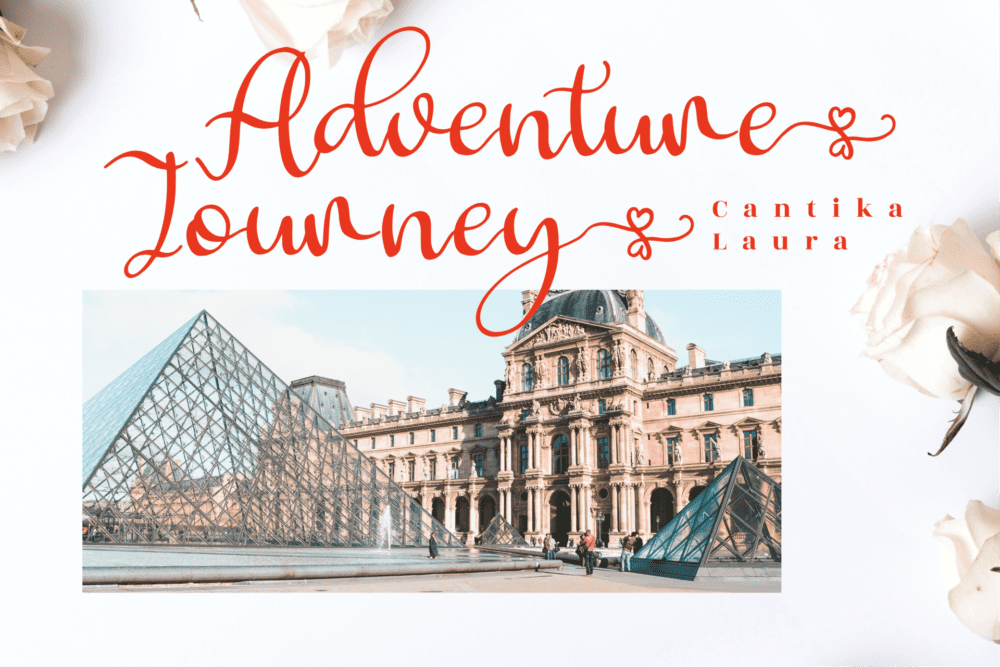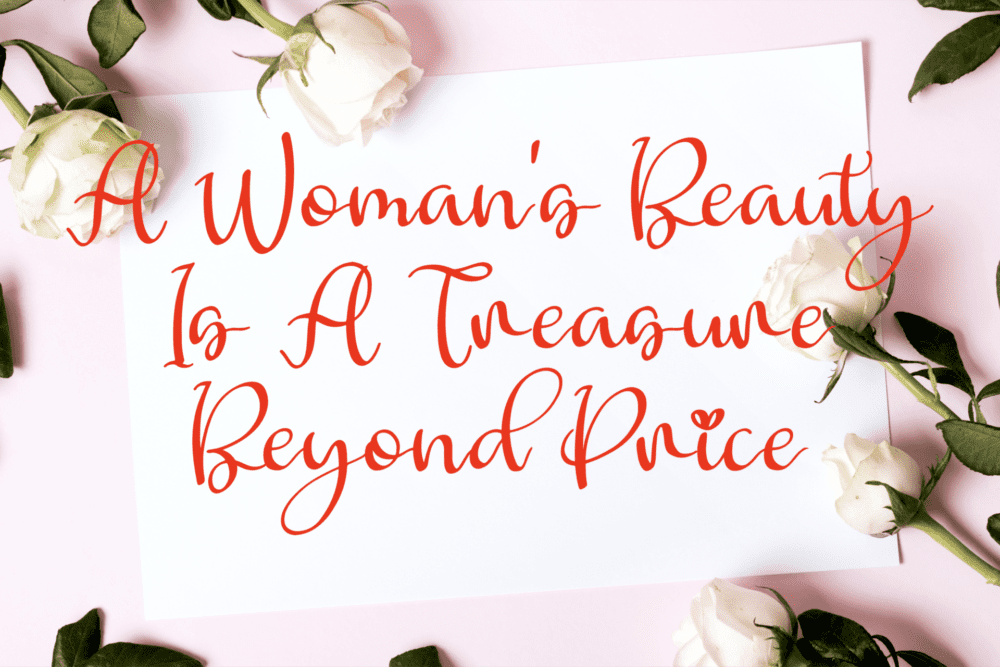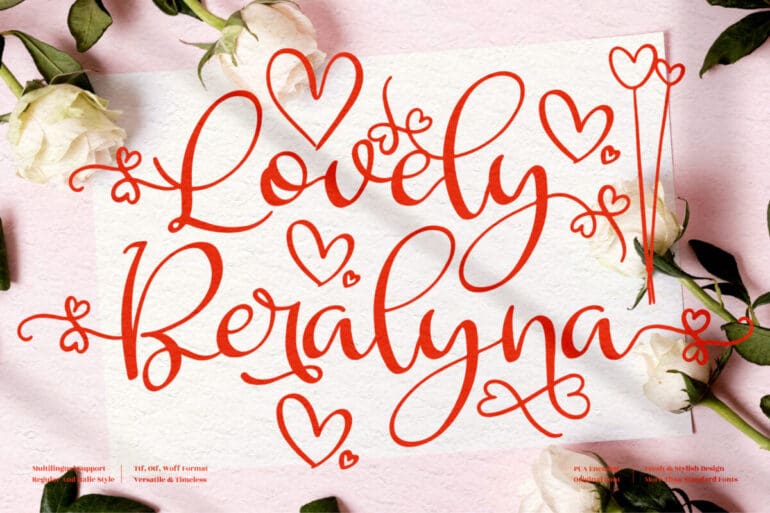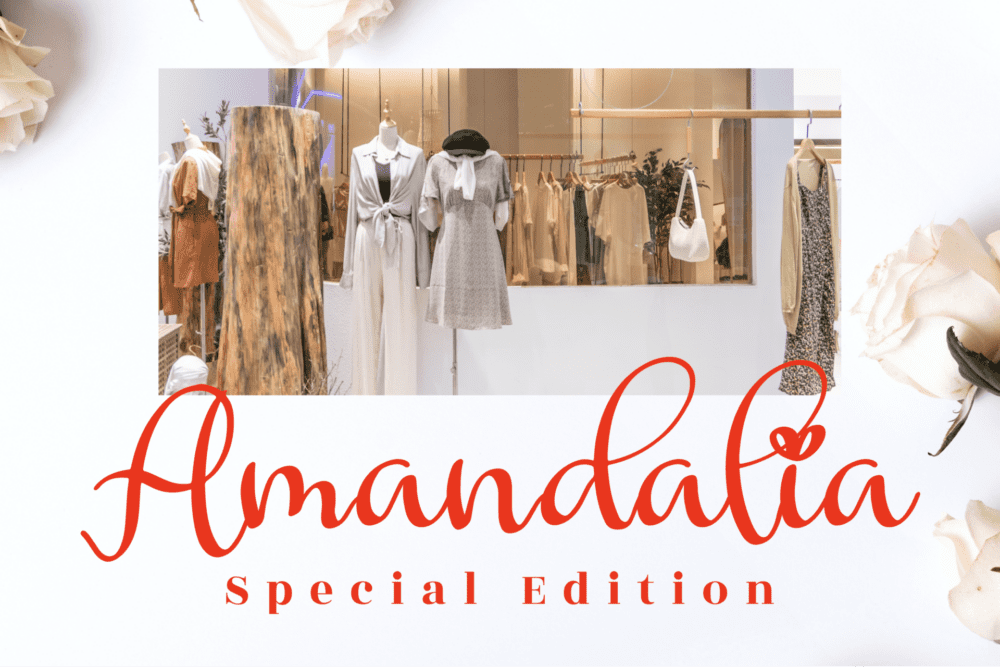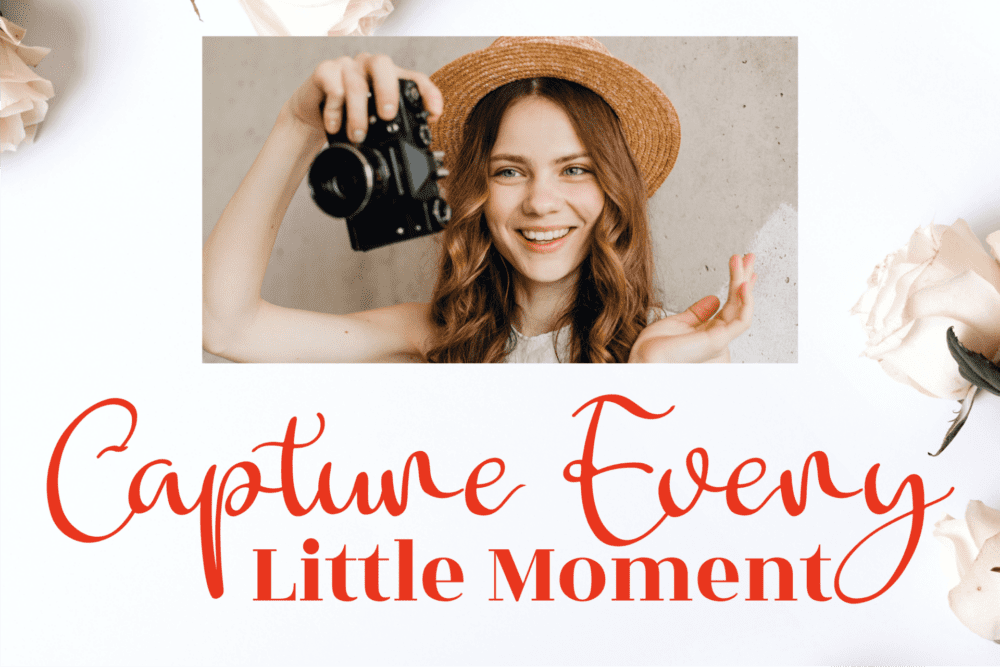
Lovely Beralyna Calligraphy Font
Lovely Beralyna Calligraphy Font, suitable for any projects such as logos, branding projects, homeware designs, product packaging, mugs, quotes, posters, shopping bags, t-shirts, book covers, name card, invitation cards, greeting cards, label, photography, watermark, special events, and all your other lovely projects.